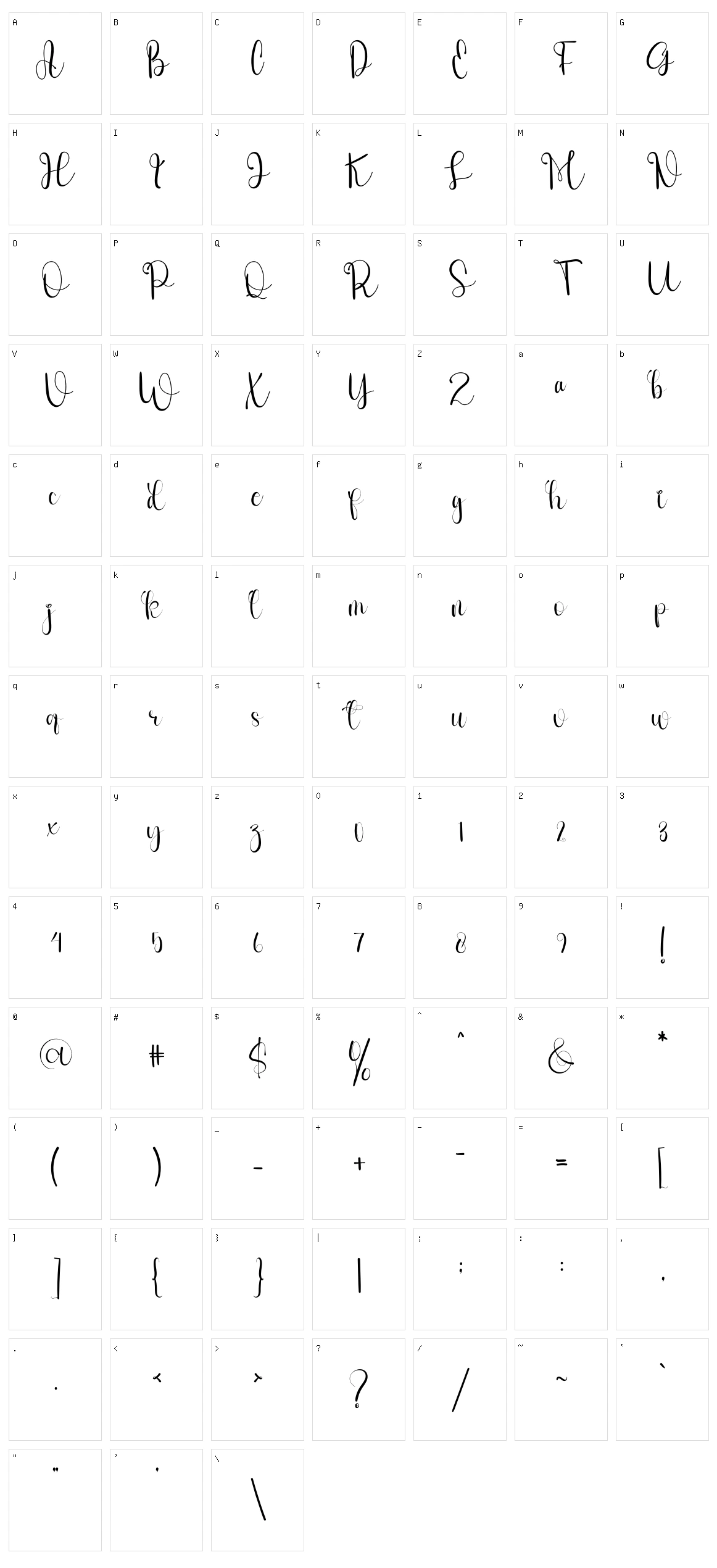
The free font Nayla is carefully designed by Inermedia Studio, showcasing a thoughtful balance of creativity and usability and falls under the Script font style. When you download the ZIP file, it contains only 86.15 KB of font files, making it lightweight and quick to download. Please review the license details below to understand permitted usage and distribution rights. If license information is not available, we recommend using this font for personal projects only or contacting the author directly for commercial usage permissions.